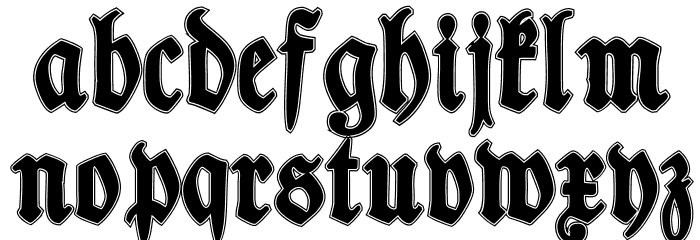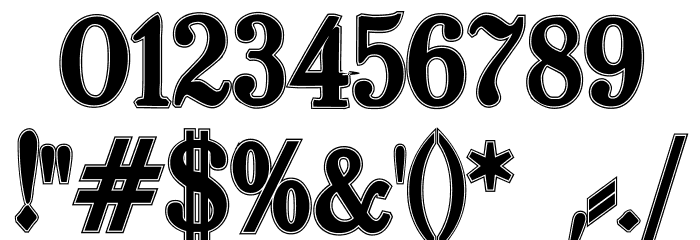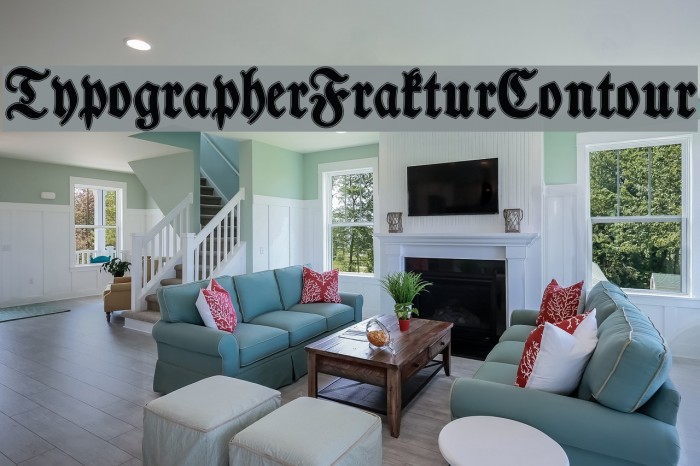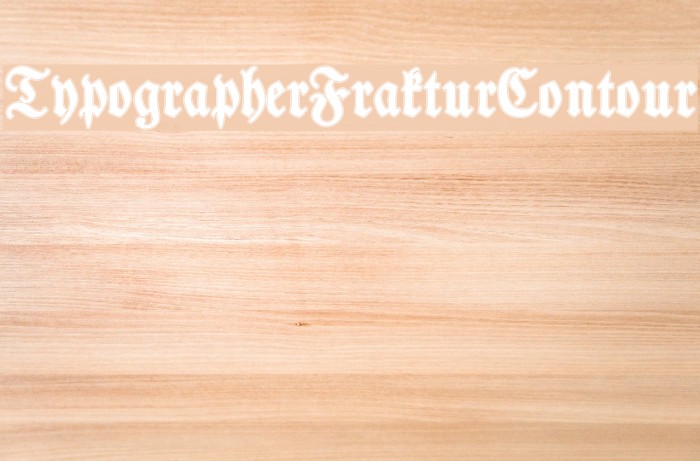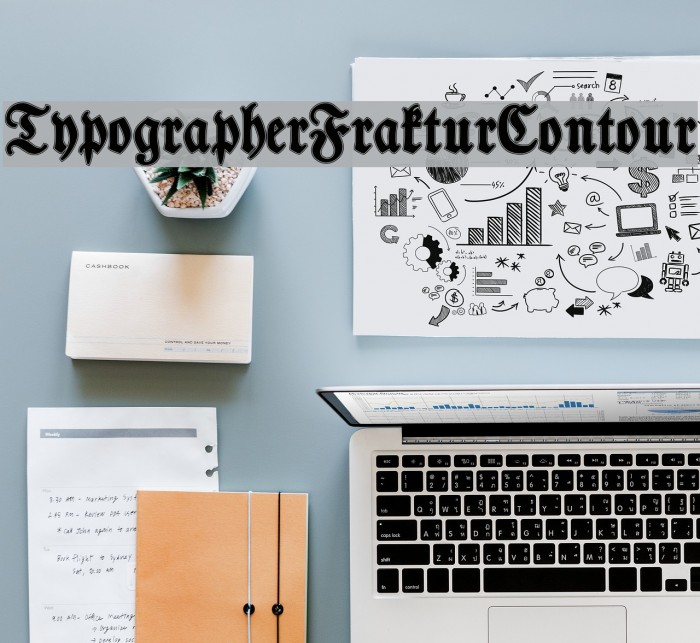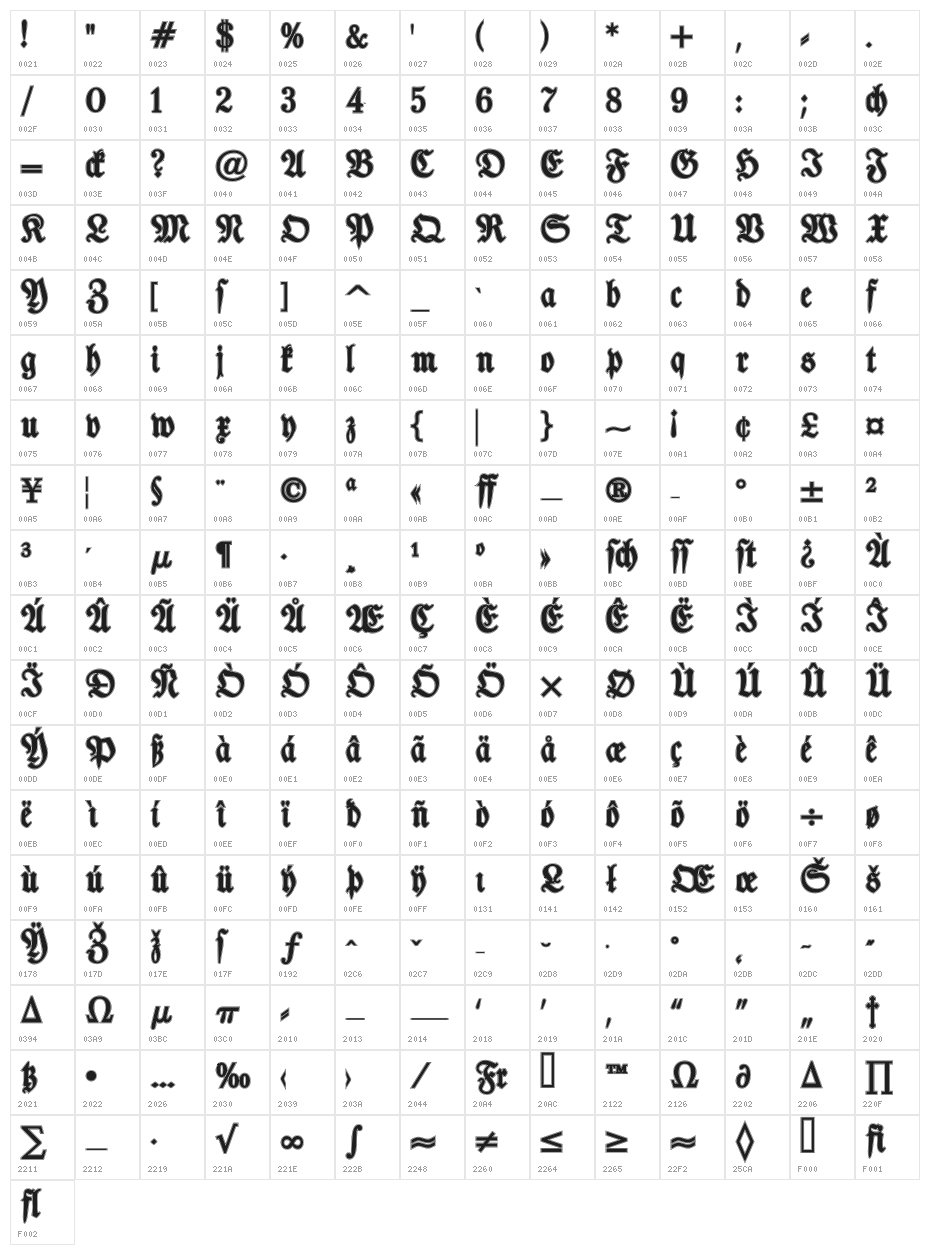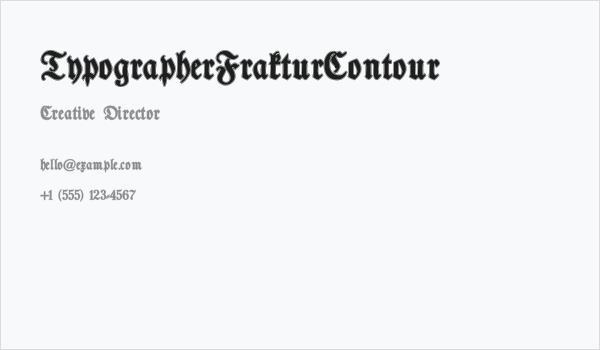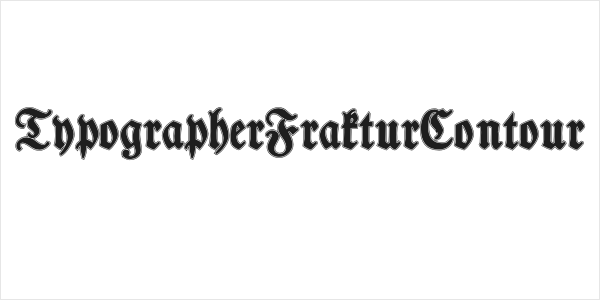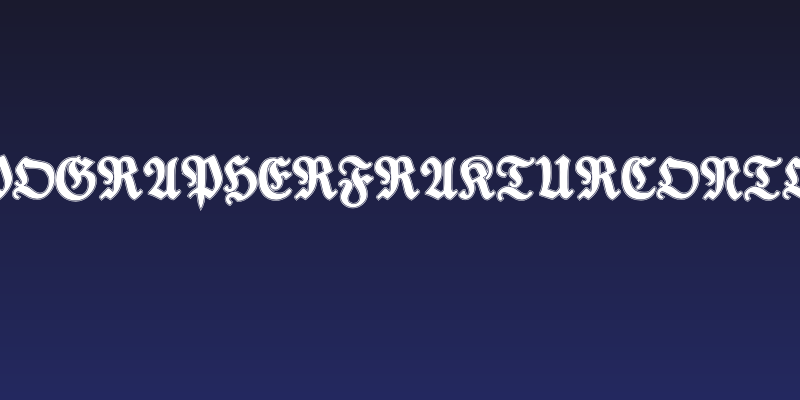
TypographerFrakturContour Font
This font features a bold and intricate design, reminiscent of traditional blackletter styles. The characters are ornate, with sharp angles and elaborate flourishes that give it a historical and gothic appearance. The uppercase letters are particularly striking, with their dramatic curves and pointed serifs, while the lowercase letters maintain a consistent style with slightly more subdued embellishments. The numerals and special characters follow the same ornate theme, ensuring a cohesive look across all glyphs. This font's contour effect adds depth, making it stand out even more.
A bold, ornate blackletter font with intricate contours and gothic flair.
- Proposed Projects: Ideal for projects requiring a historical or gothic touch, such as book covers, posters, or branding for vintage-themed events.
- Overall Style: Vintage
- Use Case: Headlines, Logos, Decorative purposes